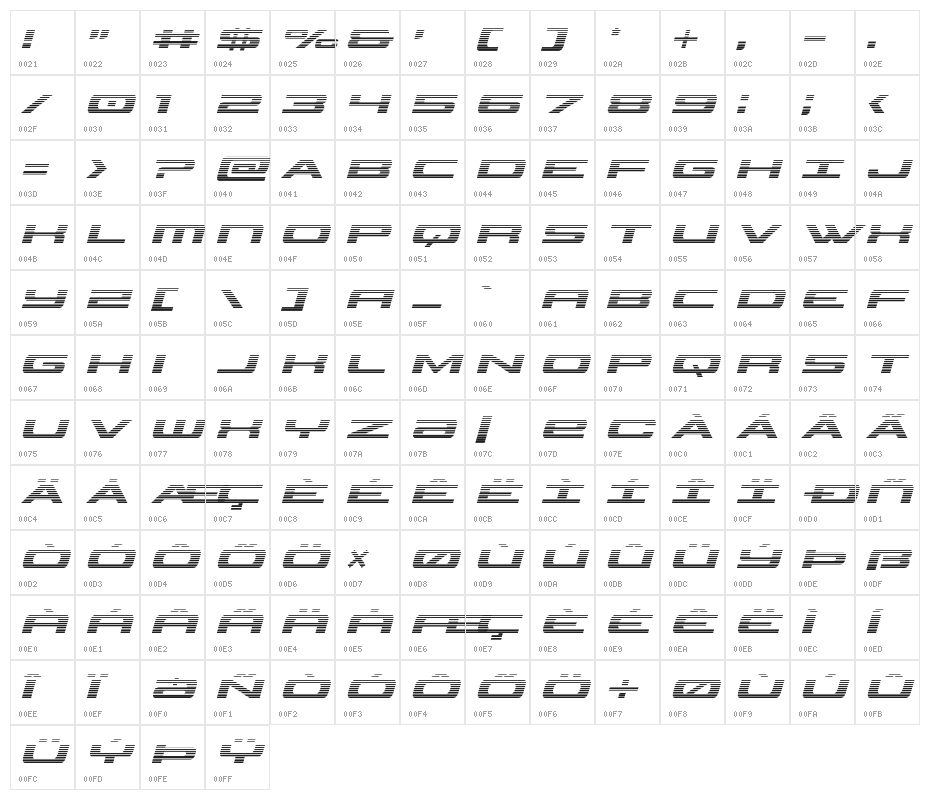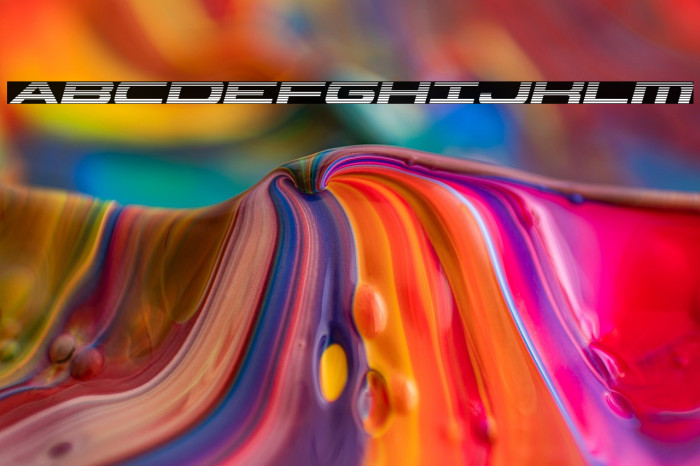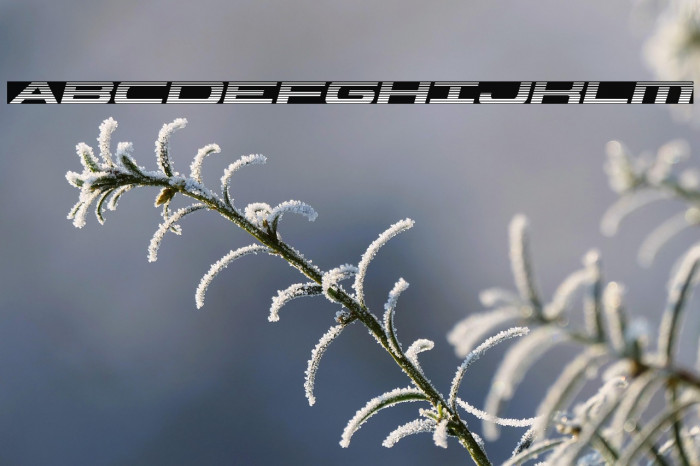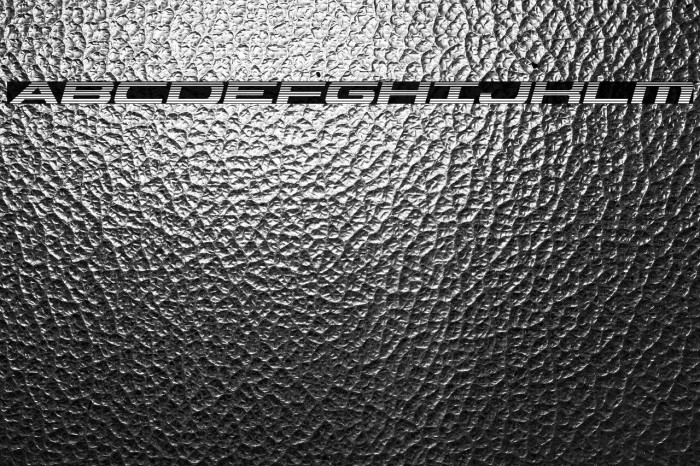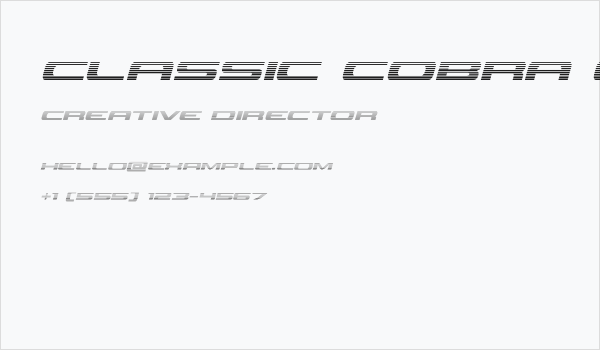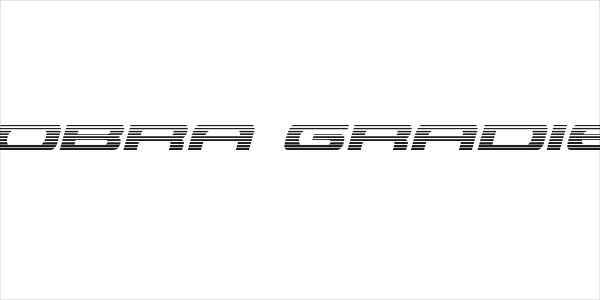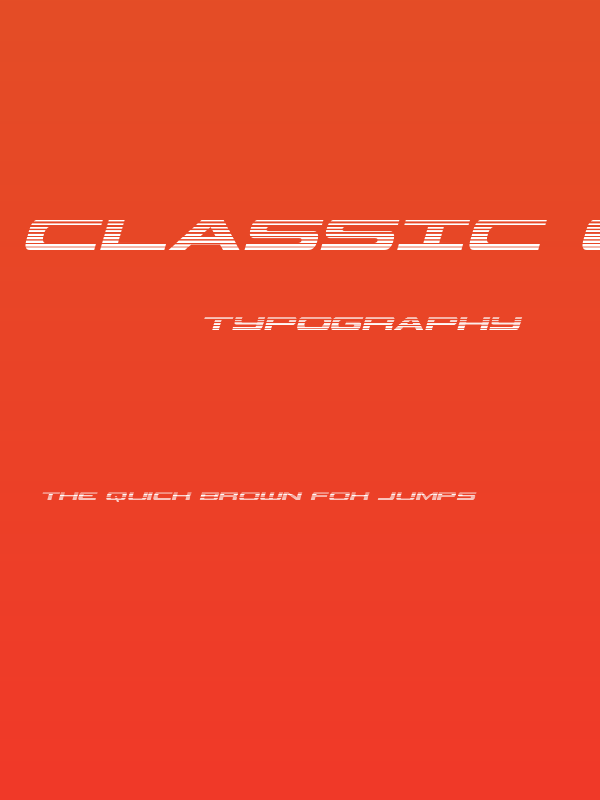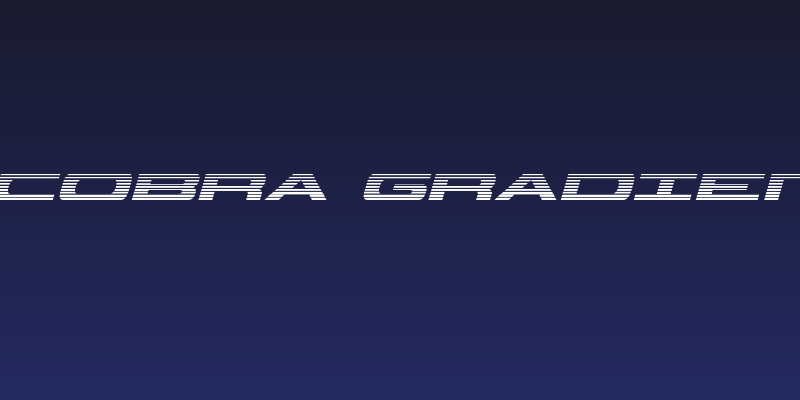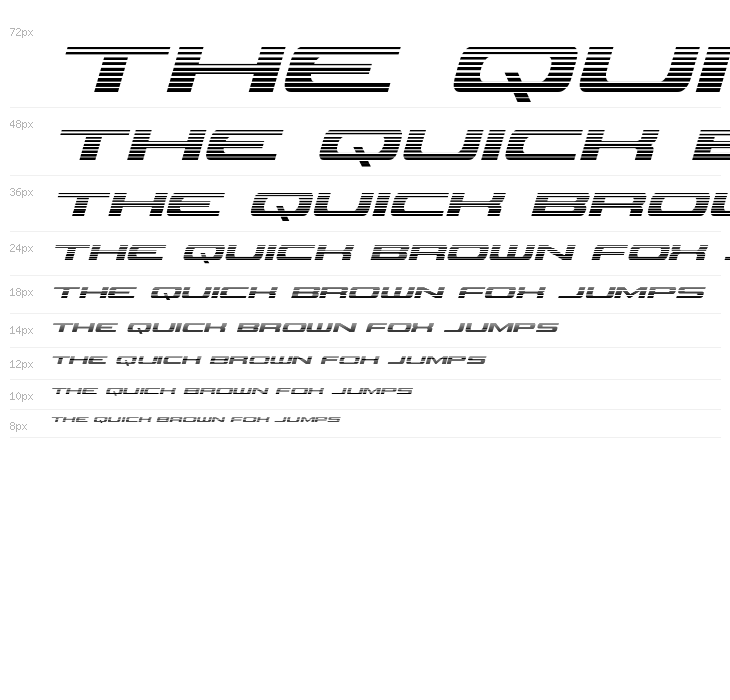
Classic Cobra Gradient Italic Font
Classic Cobra Gradient Italic Description
This font features a dynamic and futuristic design with a distinct italic slant, giving it a sense of motion and speed. The characters are composed of multiple parallel lines, creating a gradient effect that adds depth and dimension. This style is reminiscent of racing stripes, making it ideal for projects that require a sense of energy and modernity. The uppercase and lowercase letters maintain a consistent style, while the numerals and special characters are designed to match the overall aesthetic. The font's unique appearance makes it suitable for eye-catching headlines and logos.